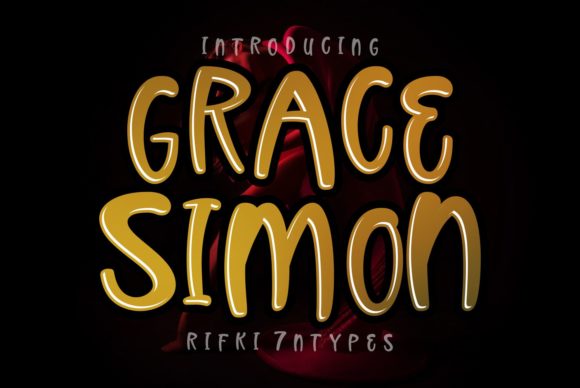
Introducing the Delightful Grace Simon Font: Elevate Your Designs with a Youthful Twist
In the realm of typography, fonts play a pivotal role in shaping the visual identity of a design. They can evoke emotions, convey messages, and add personality to a project. Among the myriad of fonts available, the Grace Simon font stands out for its unique blend of cuteness and friendliness. This display font is not just a typeface; it’s an experience that injects a youthful vibe into any design. In this article, we’ll dive deep into the world of Grace Simon, exploring its characteristics, uses, and the magic it brings to your creative projects.
The Essence of Grace Simon Font
Grace Simon is described as a cute & friendly display font, and for good reason. Its design is centered around creating a visually appealing and approachable feel. The font boasts chunky letters that are not only eye-catching but also incredibly youthful. This makes it an ideal choice for designers looking to add a playful twist to their work. Whether you’re working on a branding project, a website, or marketing materials, Grace Simon can transform your designs, making them more engaging and lively.
Key Features of Grace Simon Font
- Cute & Friendly Design: The font’s primary feature is its cute and friendly appearance. It’s designed to evoke a sense of warmth and approachability, making it perfect for brands that want to appear more human and relatable.
- Youthful Feel: The incredibly youthful feel of Grace Simon is one of its standout characteristics. It’s not just a font; it’s a way to infuse your designs with energy and vibrancy.
- Chunky Lettered: The chunky lettering of Grace Simon adds to its appeal. It’s bold, it’s daring, and it’s sure to make your designs pop.
- Versatility: While Grace Simon is categorized as a display font, its versatility allows it to be used in various design contexts, from headings and titles to short paragraphs and quotes.
Applications of Grace Simon Font
The Grace Simon font, with its unique characteristics, finds applications in a wide range of design projects. Here are some of the areas where it can make a significant impact:
- Branding and Logos: For businesses looking to establish a friendly and youthful brand image, Grace Simon can be a valuable asset. It’s perfect for creating logos, brand names, or taglines that resonate with a younger audience.
- Web Design: Websites aimed at a younger demographic or those that wish to convey a friendly and approachable vibe can greatly benefit from using Grace Simon for headings, titles, and call-to-action buttons.
- Marketing Materials: Brochures, flyers, posters, and social media graphics can all be elevated with Grace Simon. Its chunky and youthful appearance ensures that marketing materials stand out and grab attention.
- Packaging Design: For products targeting a younger audience or those that wish to appear more friendly and approachable, Grace Simon can be used on packaging to create a cohesive brand image.
Tips for Using Grace Simon Font Effectively
To make the most out of Grace Simon and ensure it enhances your designs, consider the following tips:
- Pair with Complementary Fonts: While Grace Simon can be a focal point, pairing it with simpler fonts can create a balanced and visually appealing design. Choose fonts that complement its playful and youthful vibe.
- Use it Sparingly: Due to its bold and chunky nature, it’s best to use Grace Simon sparingly. Apply it to key elements like titles and headings, and use a more straightforward font for body text.
- Experiment with Colors: Grace Simon looks great in bright and bold colors. Don’t be afraid to experiment with different color schemes to find the one that best suits your design and brand.
- Consider Your Audience: While Grace Simon is versatile, it’s essential to consider your target audience. Ensure that the playful and youthful vibe aligns with your brand image and appeals to your audience.
Grace Simon font is more than just a typeface; it’s a design element that can transform your projects with its cute, friendly, and youthful appearance. Its chunky lettering and versatile nature make it suitable for a wide range of applications, from branding and web design to marketing materials and packaging. By incorporating Grace Simon into your designs and following the tips outlined above, you can create visually appealing and engaging projects that resonate with your audience. So, why not give Grace Simon a try and see how it can bring your designs to life?